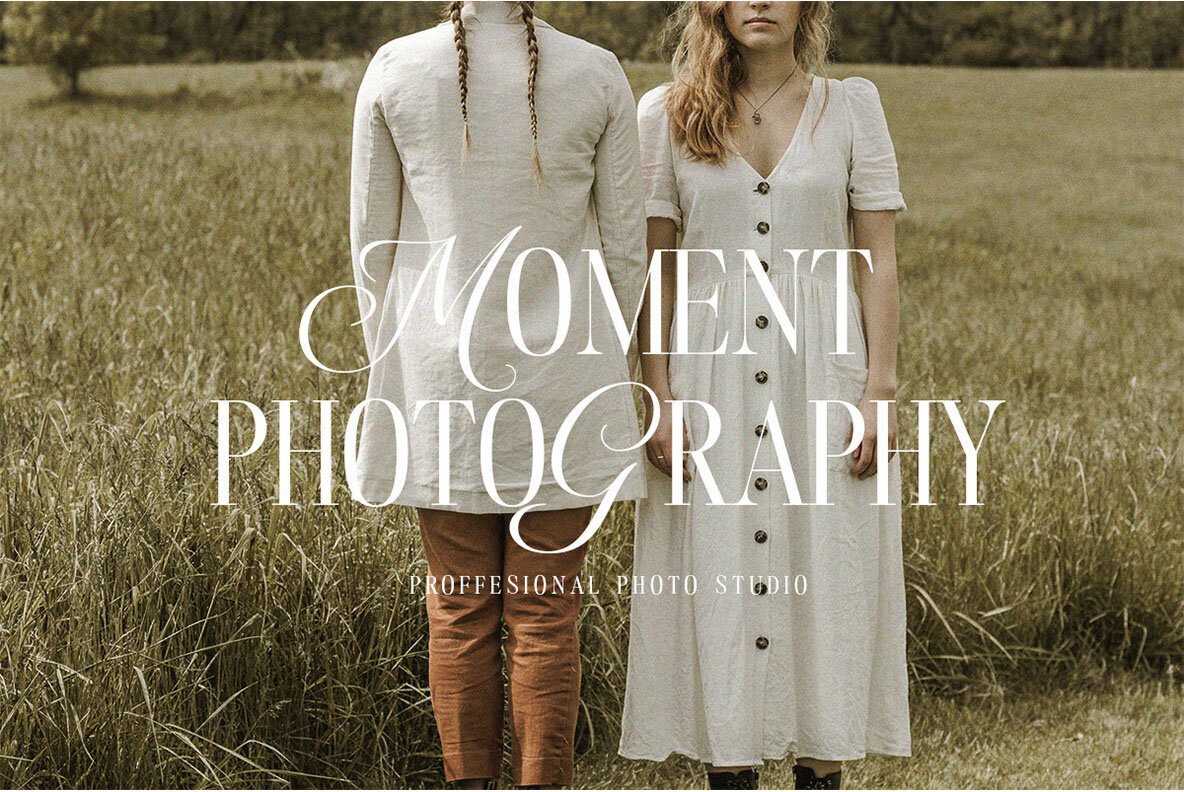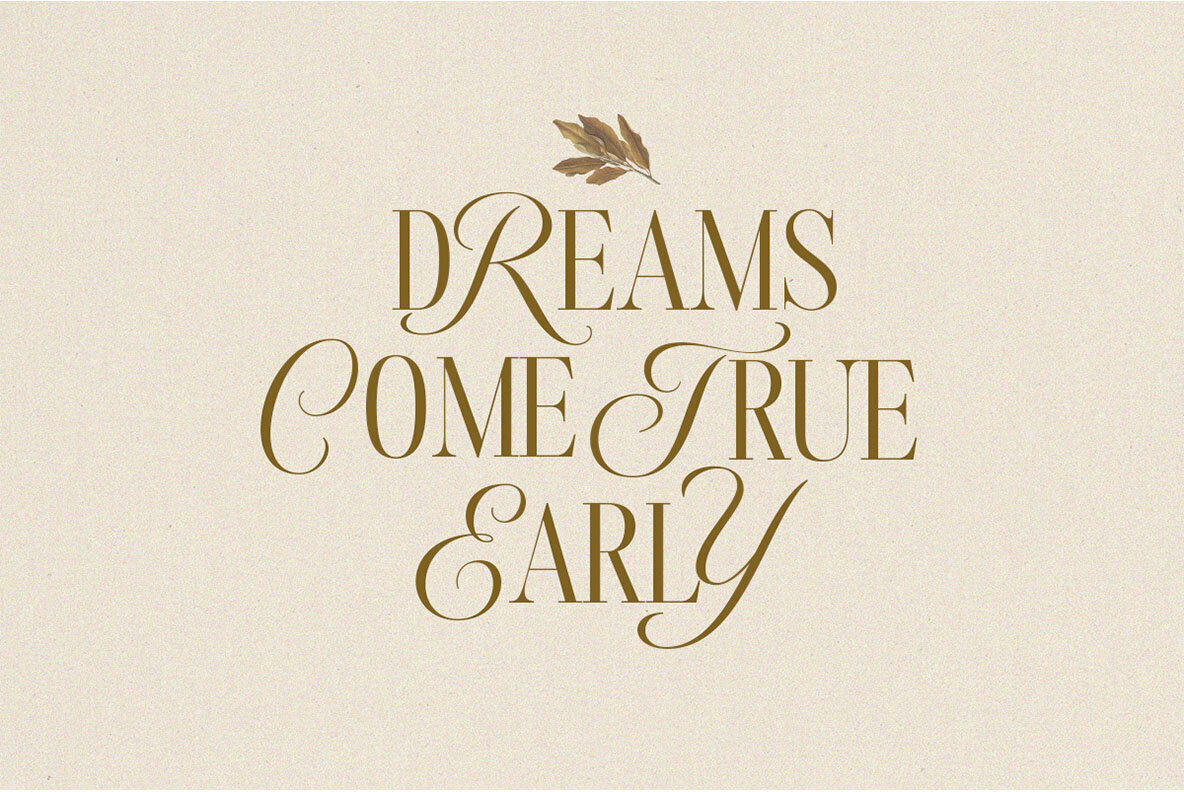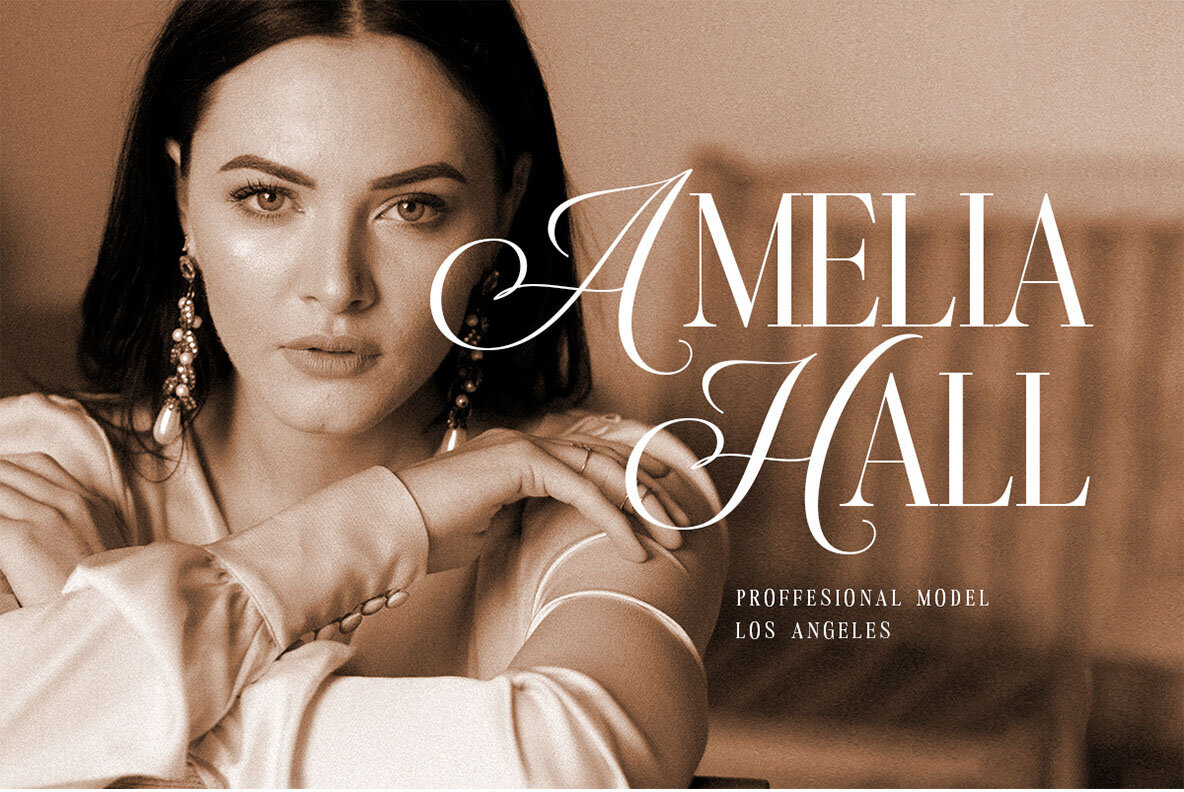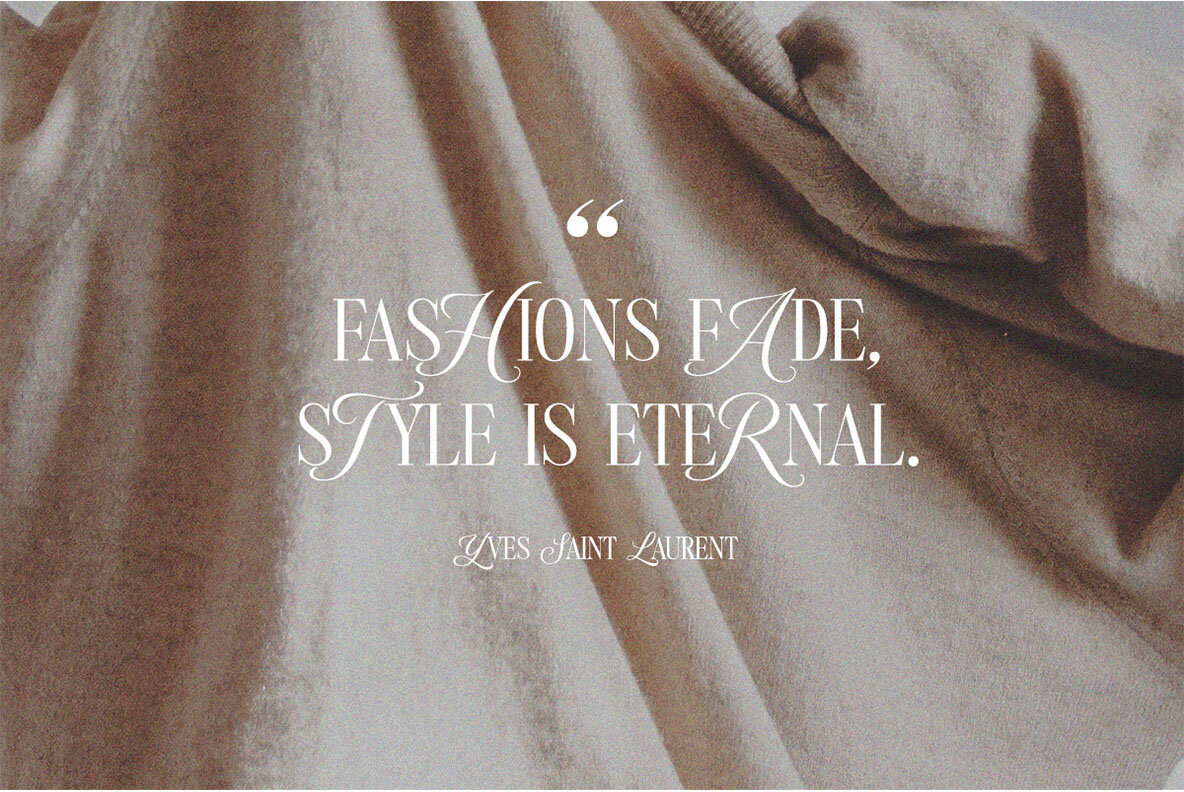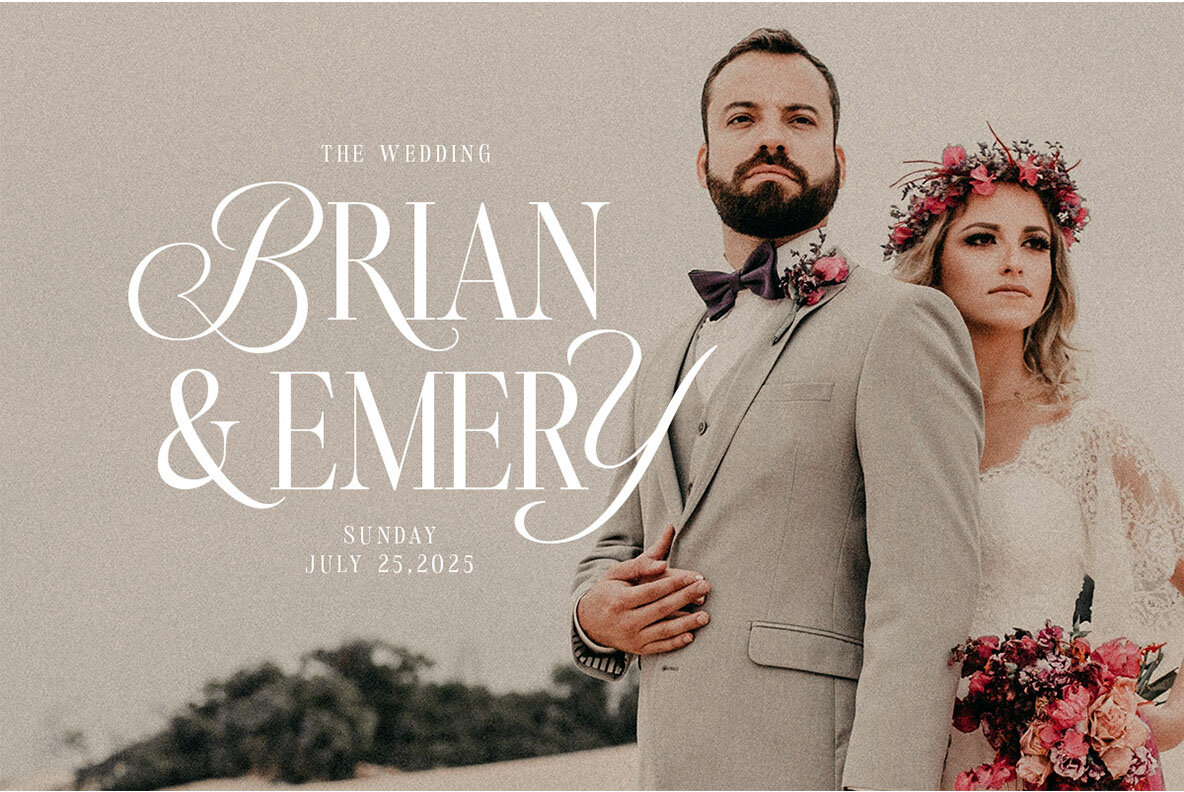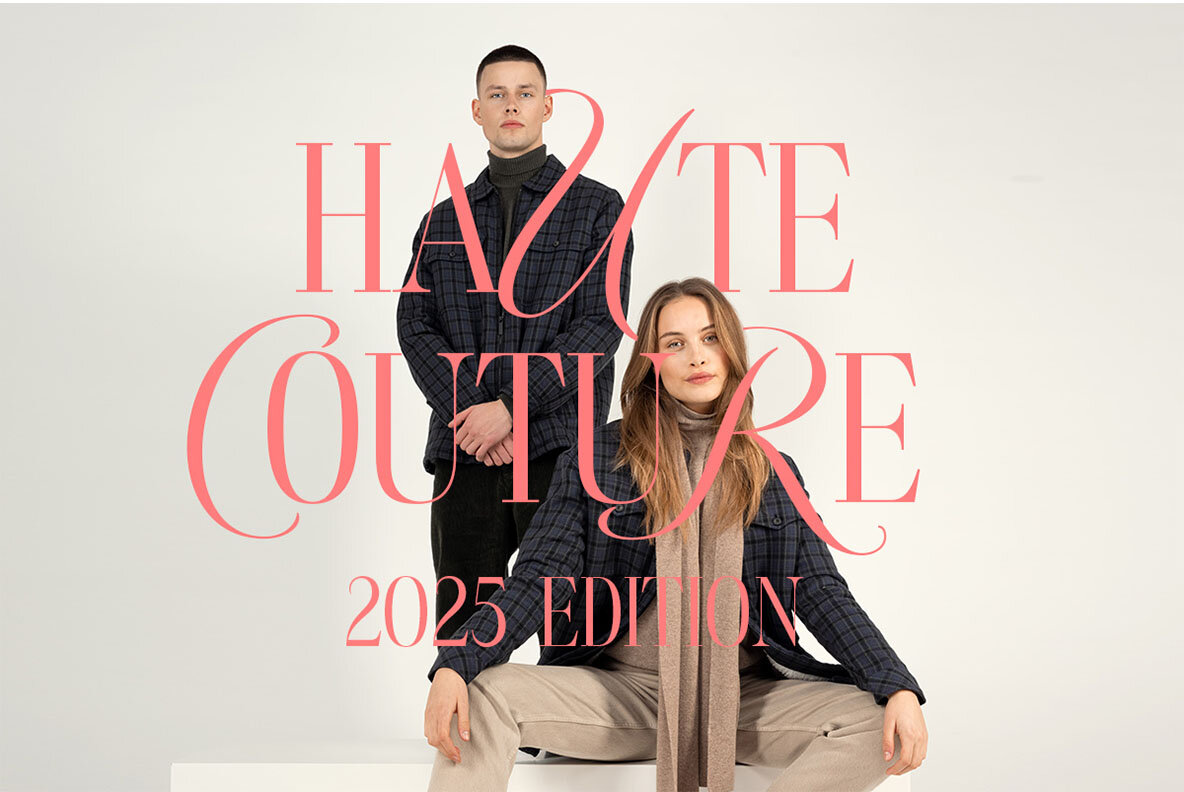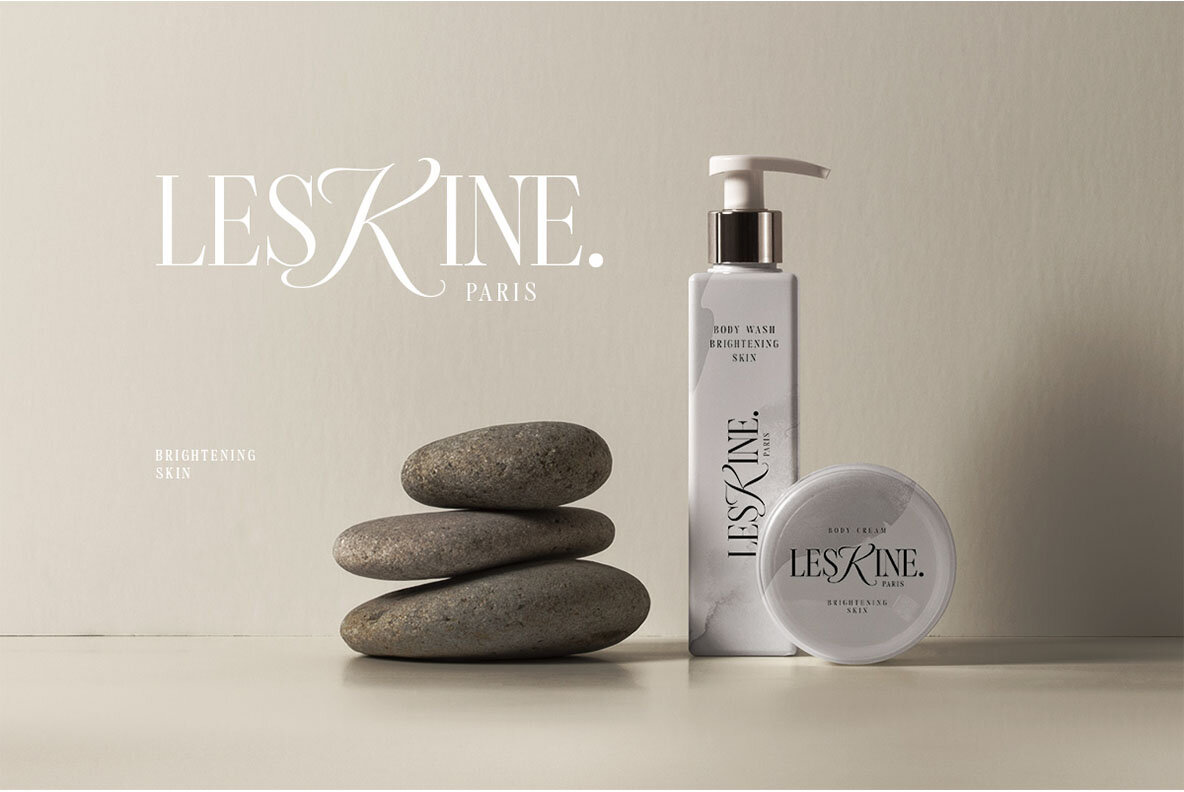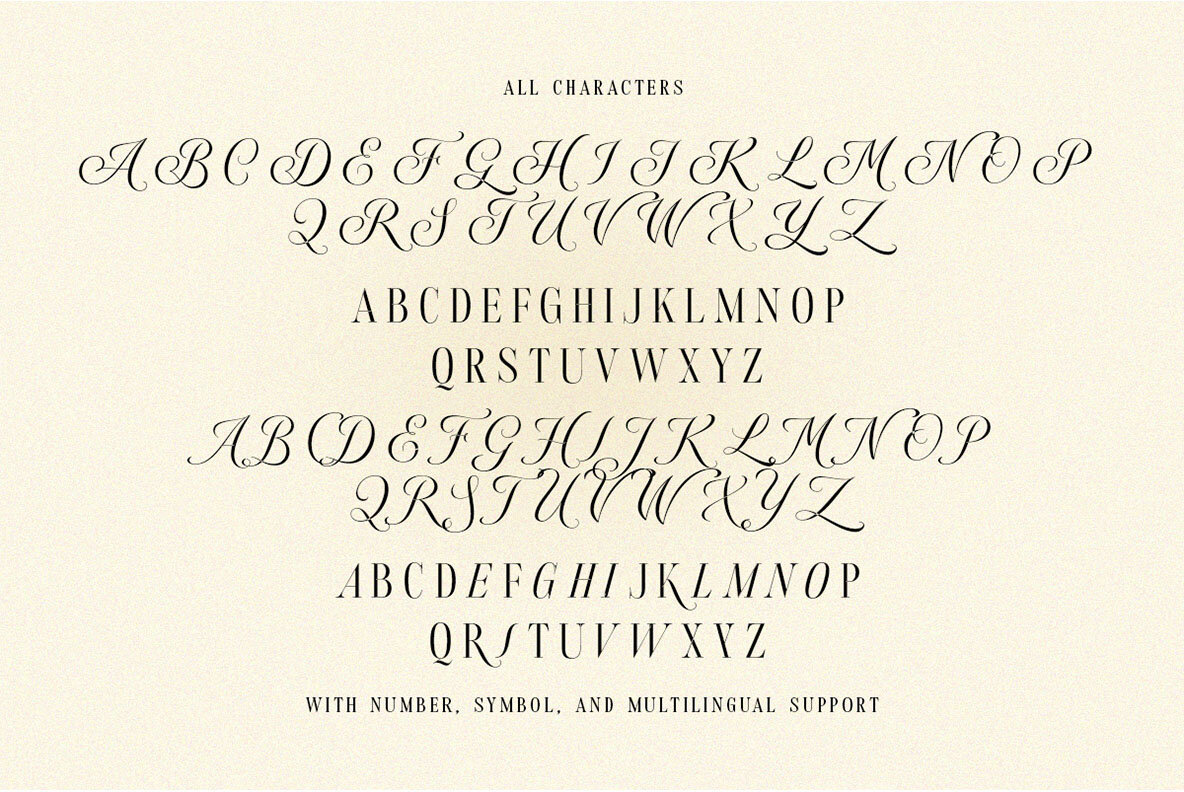
Androgy Font
Androgy Regular
Androgy Display by Letterhend Studio brings a novel twist to serif typography, offering an intriguing blend of script uppercase with classic serif lowercase. This distinctive combination makes it ideal for a variety of formal applications, including invitations, logos, and magazines. Such versatility extends to packaging, fashion, and even advertising materials, making Androgy a favorite among designers seeking elegance and adaptability.Androgy: Dual-Style Serif for Diverse Applications